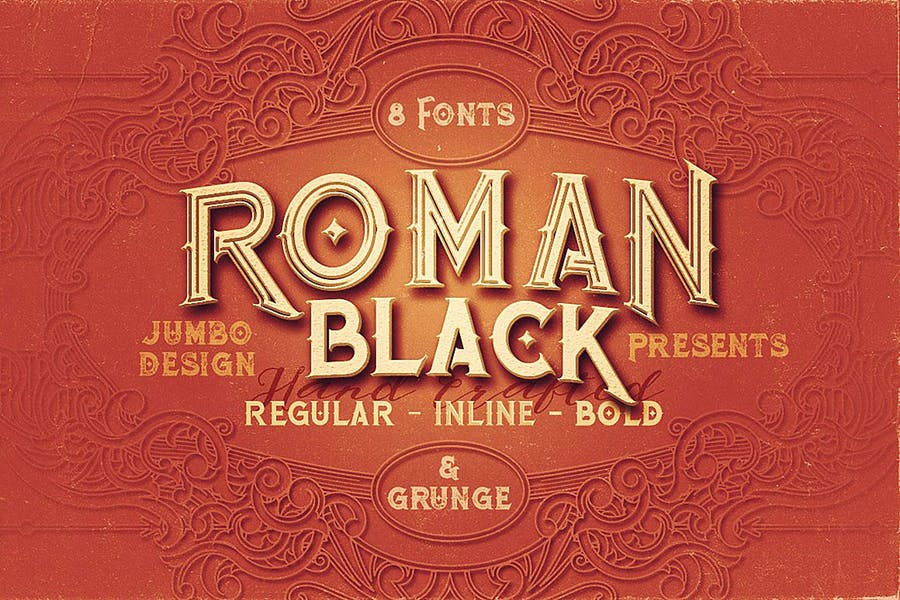
Roman Black - 8 Display Fonts
Roman Black - 8 Display Fonts is perfect for powerful headline design, bold poster layouts, strong logo creation, architectural signage, newspaper headlines, magazine covers, sports team branding, construction company materials, industrial packaging, government publications, legal firm identity, and authoritative advertising campaigns.
Roman Black - 8 Display Fonts is exciting because it delivers commanding visual presence with eight distinct variations that provide unparalleled flexibility for creating bold, authoritative designs that demand attention and respect, while maintaining the classical elegance and timeless appeal of traditional Roman letterforms.
The Roman Black - 8 Display Fonts family includes powerful variations: Ultra Black, Heavy, Bold Condensed, Extended, Outline, Shadow, Stencil, and Distressed styles, giving designers a complete arsenal of display typography options to create impactful compositions that stand out in any competitive environment.
The font collection's robust letterforms draw inspiration from classical Roman inscriptional lettering, featuring strong vertical strokes and commanding proportions that ensure maximum legibility and impact across all applications. Each of the eight variations offers unique character while maintaining cohesive family relationships that work harmoniously together.
Roman Black - 8 Display Fonts excels in creating powerful brand identities for businesses that need to communicate strength, reliability, and unwavering authority. Its commanding presence transforms ordinary communications into bold statements that cut through visual noise and capture audience attention immediately.
Creative professionals value how Roman Black - 8 Display Fonts provides unprecedented flexibility without sacrificing consistency. The eight distinct styles offer solutions for every display typography challenge, from subtle emphasis to dramatic impact, while maintaining the professional polish expected in corporate and editorial applications.
This exceptional font collection brings instant credibility to organizations requiring authoritative visual communication. From law firms to construction companies, Roman Black - 8 Display Fonts creates lasting impressions that communicate competence, stability, and unwavering professional standards.